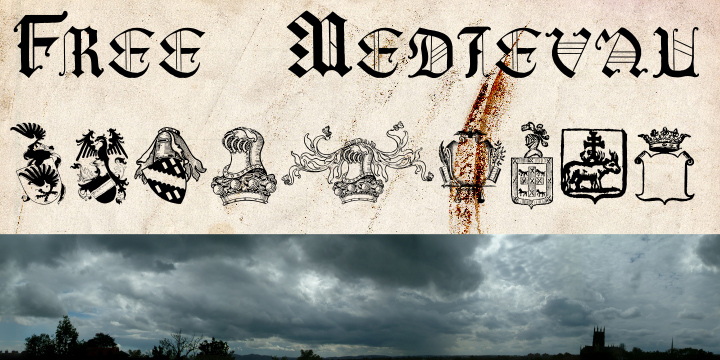
Free Medieval by Paulo W. is a free ancient-style symbol font based on European heraldry and courtly ornament. Its collection includes crested shields, crowned emblems, eagles, angels, and frames drawn with dense engraved linework. The imagery resembles an old armorial book.
Historical publishers, heritage brands, and museum shops could use it for period identities and product graphics. It also suits book covers, game materials, and event posters about dynasties or royal ceremony. Each mark can become an illustration, echoing engravings and ornamental borders elsewhere in the design.